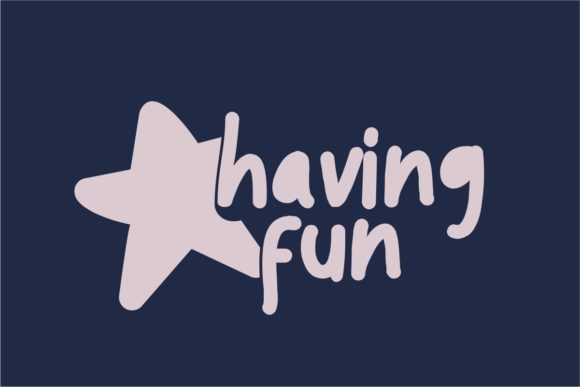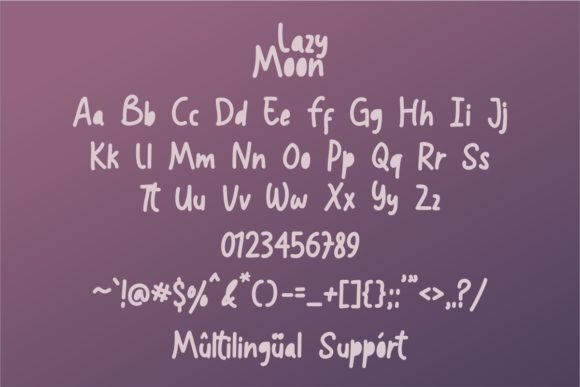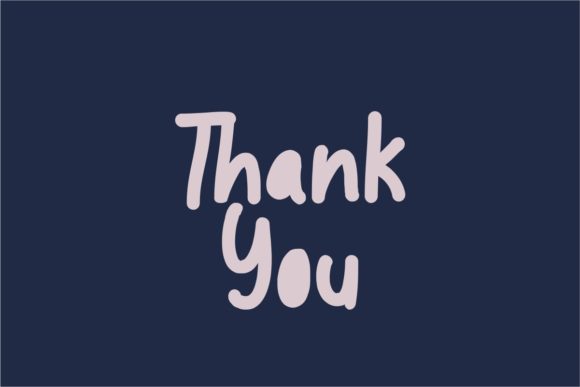
Introduction to Lazy Moon Font
Lazy Moon is a clean and trendy display font.
Key Features of Lazy Moon Font
Why Choose Lazy Moon Font?
Lazy Moon Font offers exceptional quality and versatility, making it a valuable addition to your design toolkit. Whether you’re creating for personal projects or commercial use, Lazy Moon Font delivers professional results.